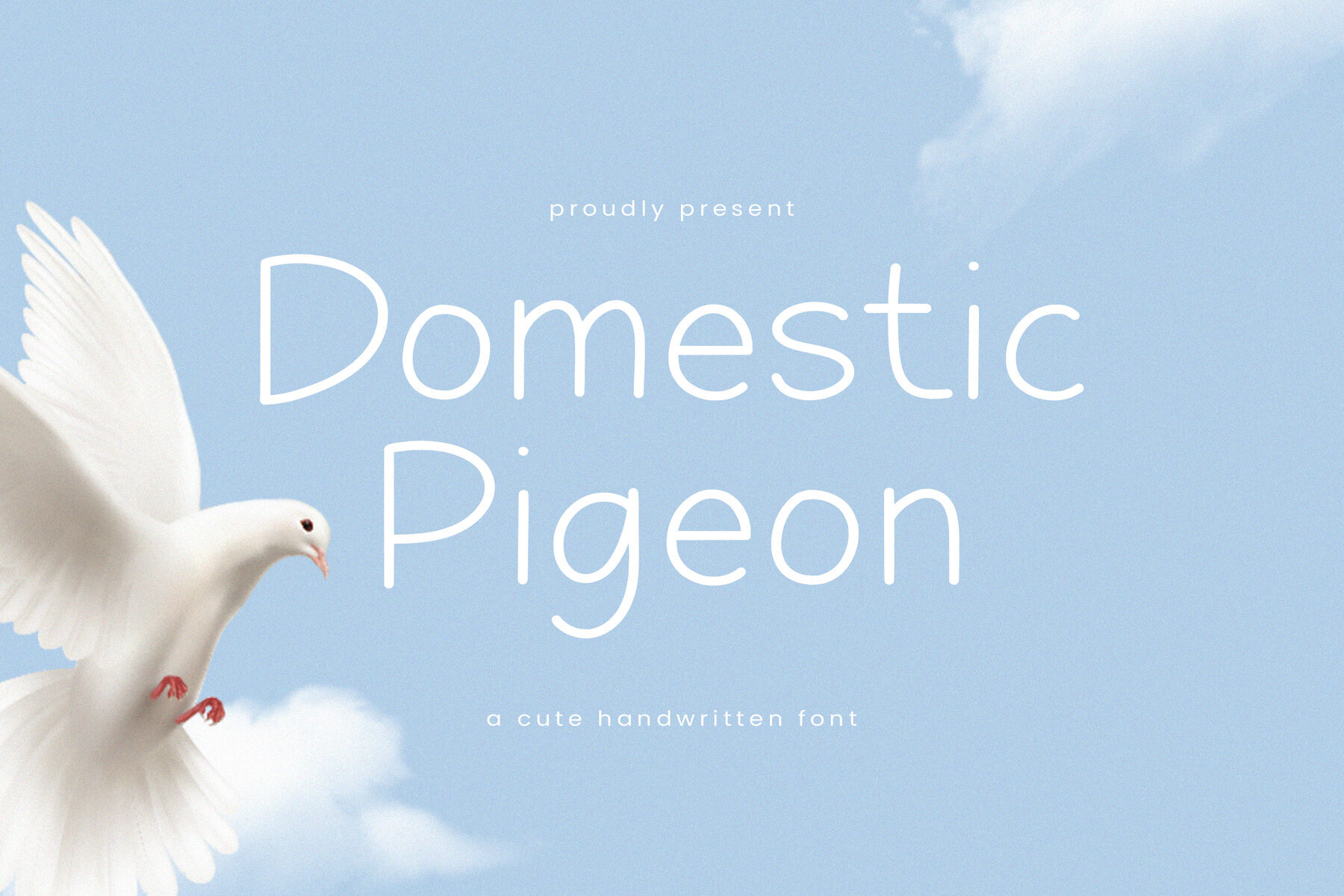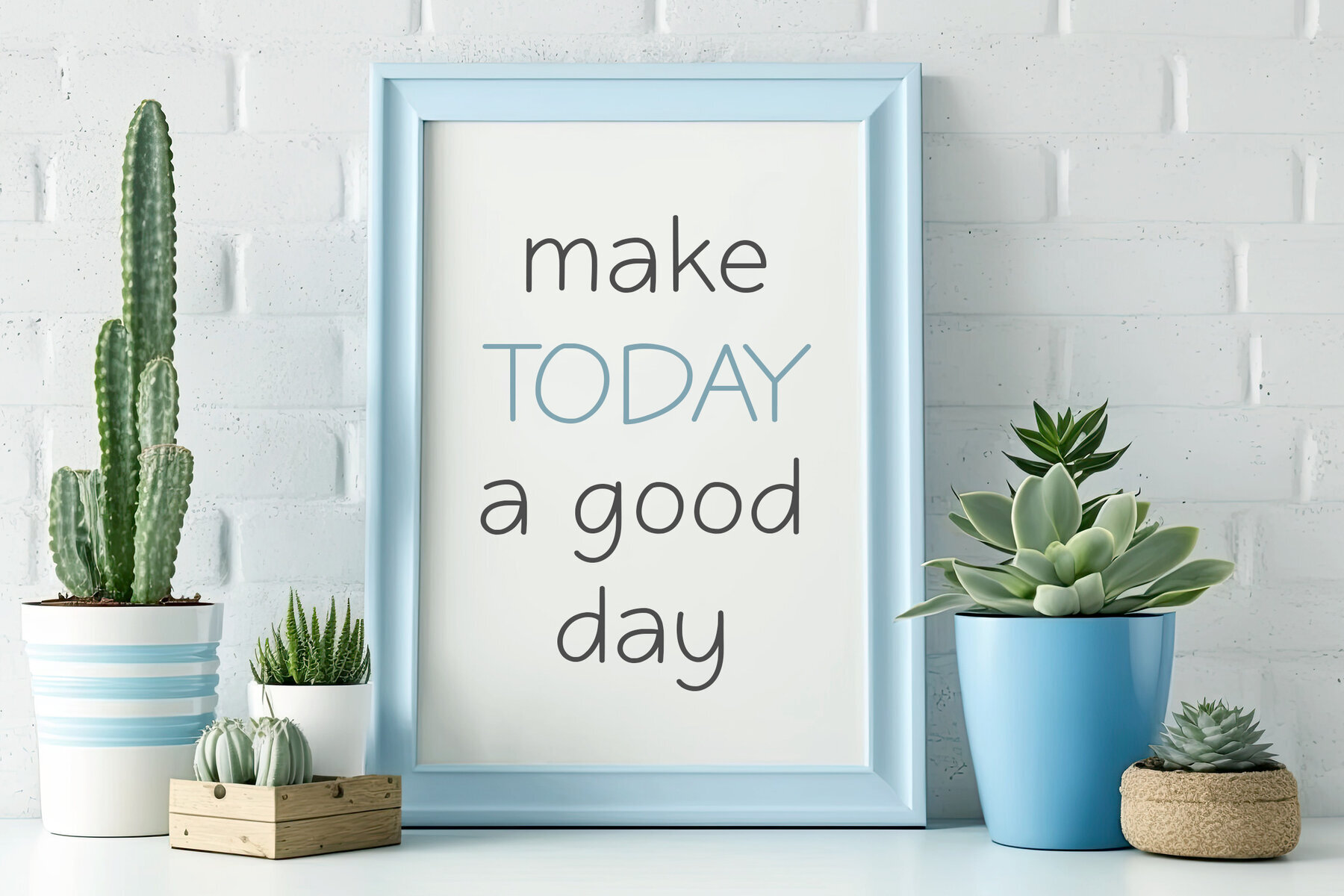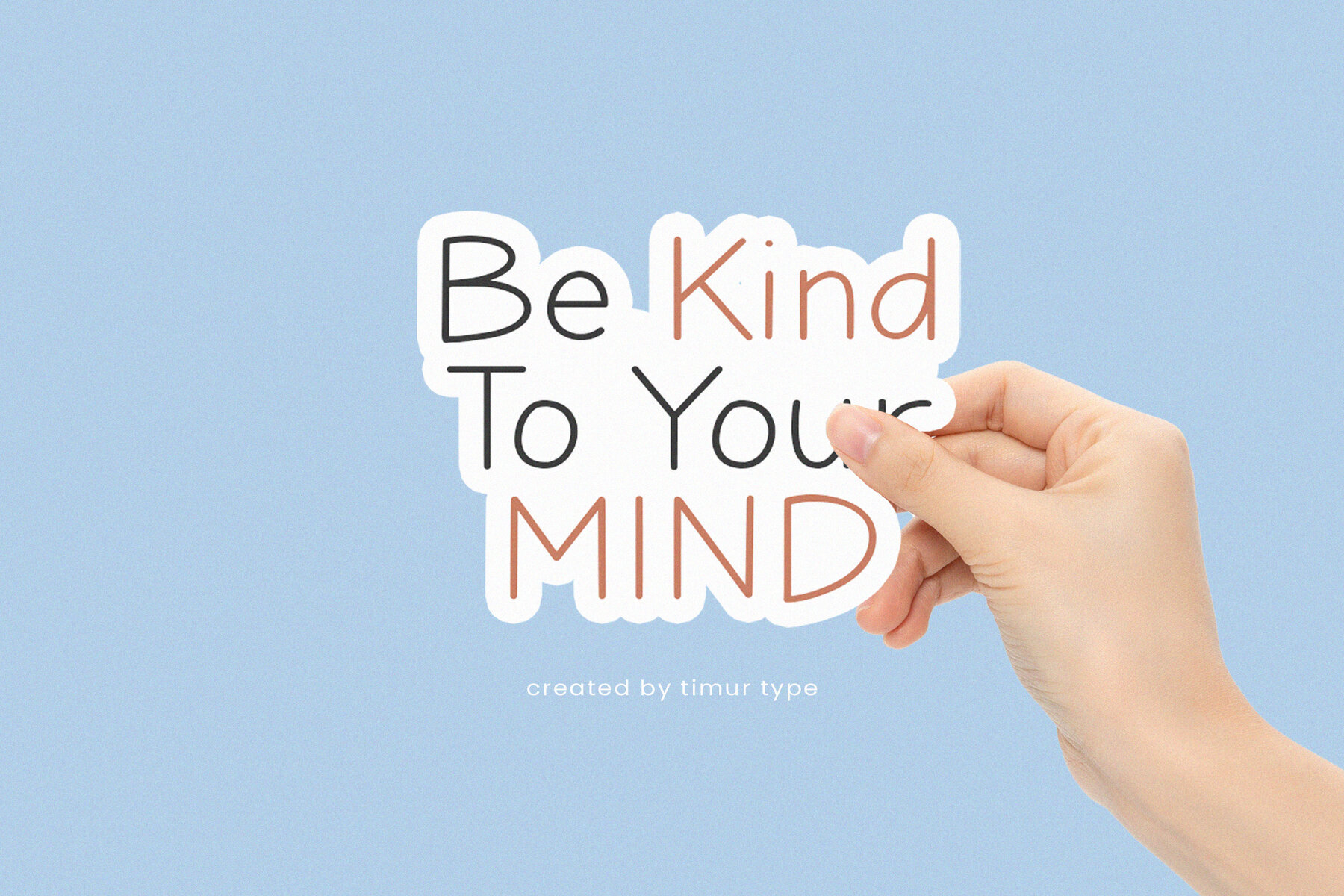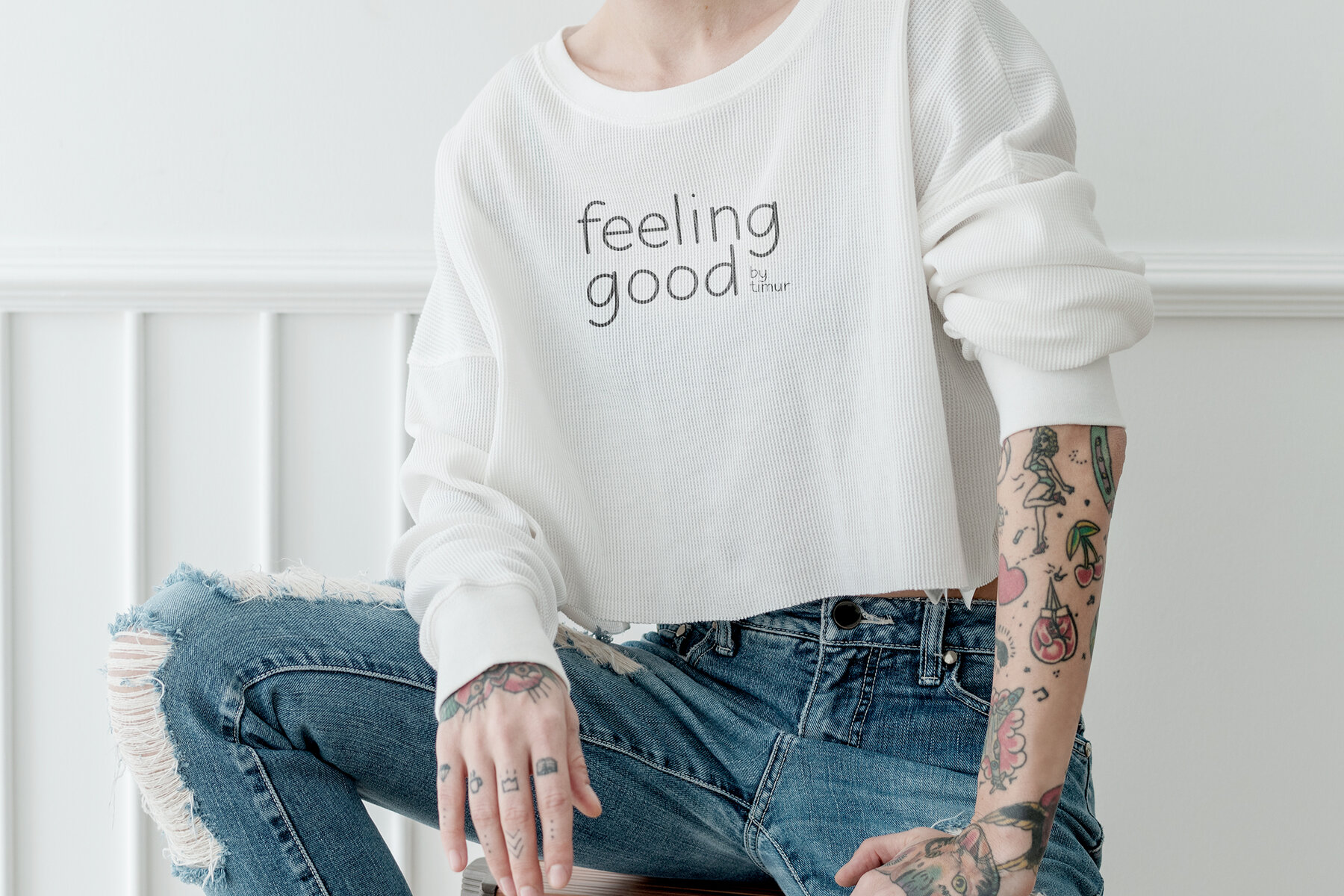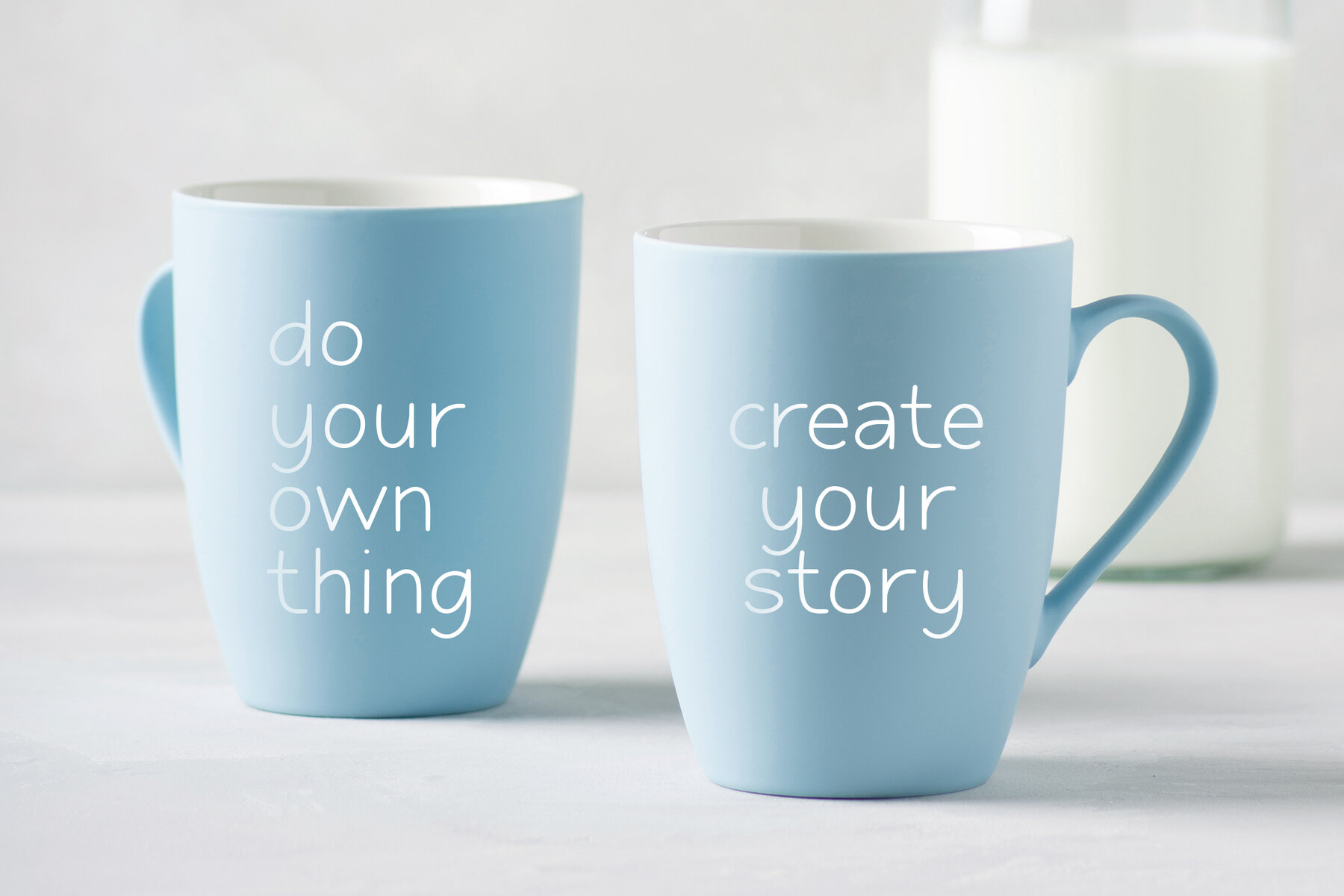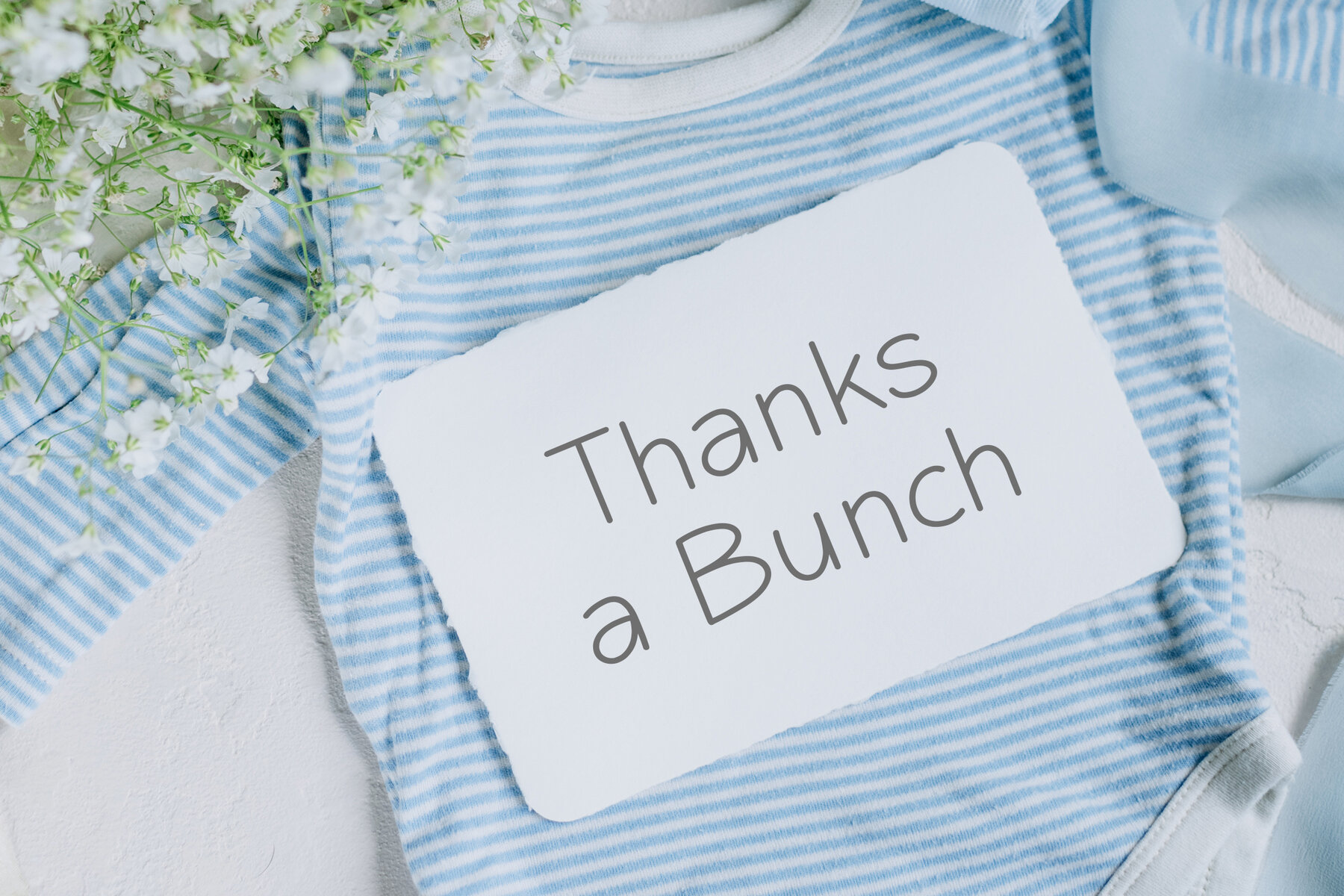
Domestic Pigeon Font
Domestic Pigeon
Domestic Pigeon is a charming handwritten font that captures the essence of whimsy and playfulness. Featuring delicate and flowing letterforms, it brings a handcrafted feel to any design. This adorable style is perfect for greeting cards, invitations, and stationery, adding a touch of sweetness to your projects.
The warmth and friendliness of Domestic Pigeon make it an excellent choice for creating joyful and lighthearted designs. Whether you're crafting personal messages or professional invitations, this font's endearing charm will infuse your work with a delightful sense of fun and creativity.